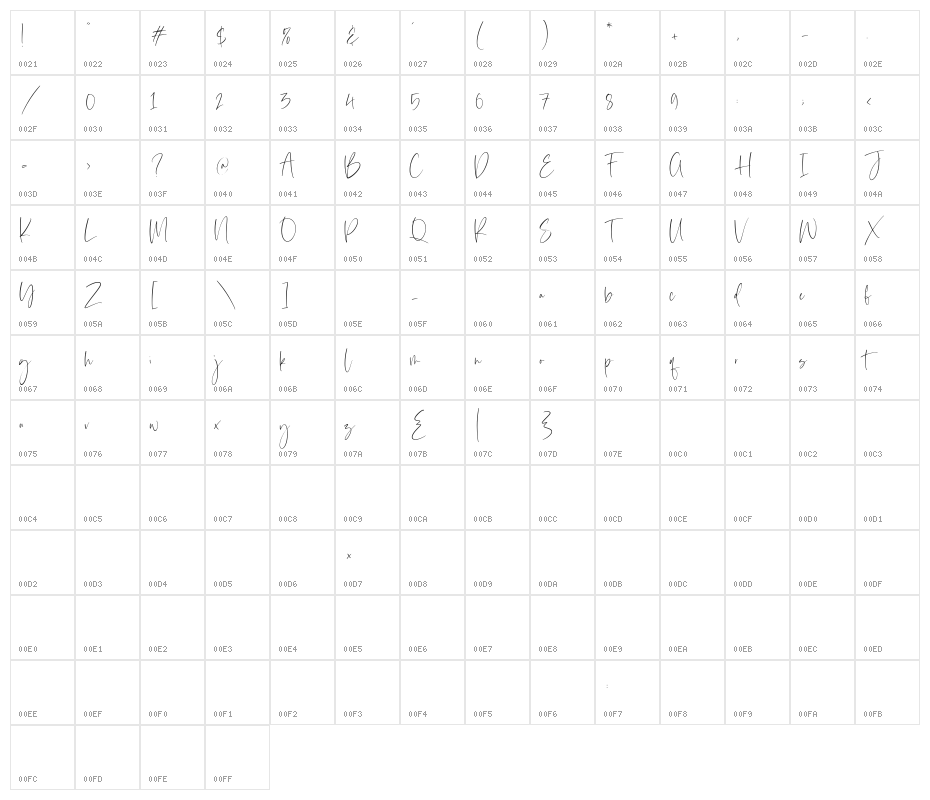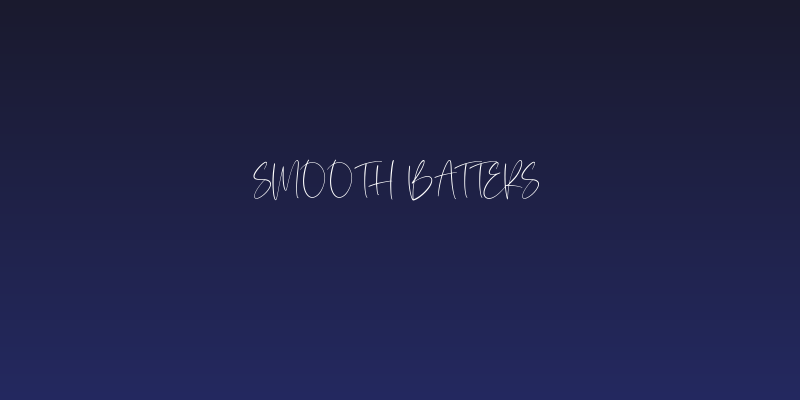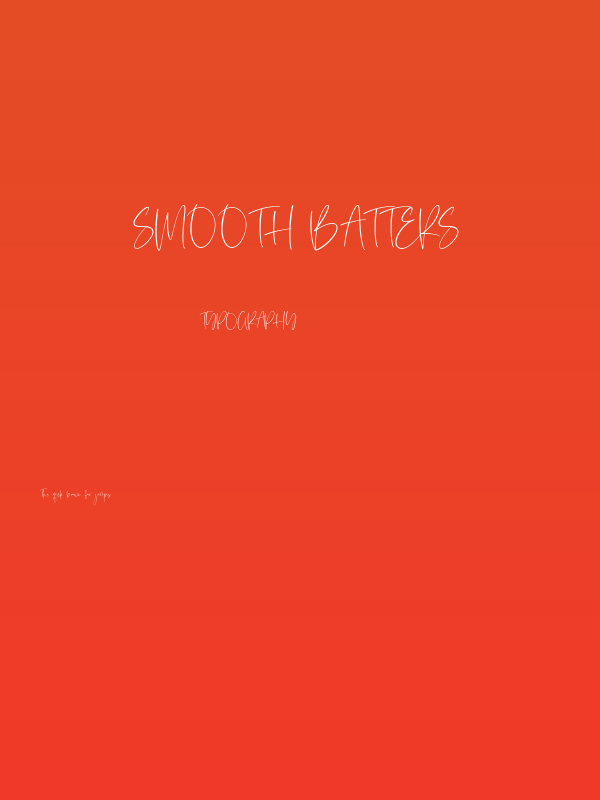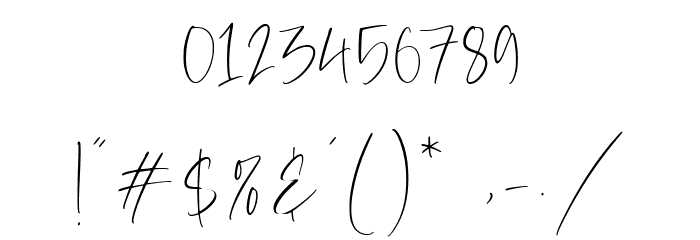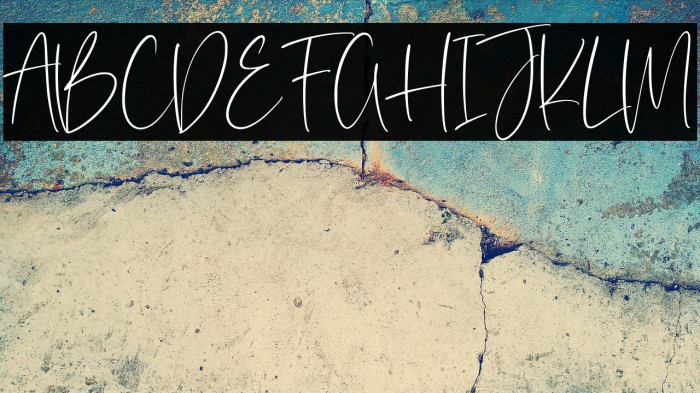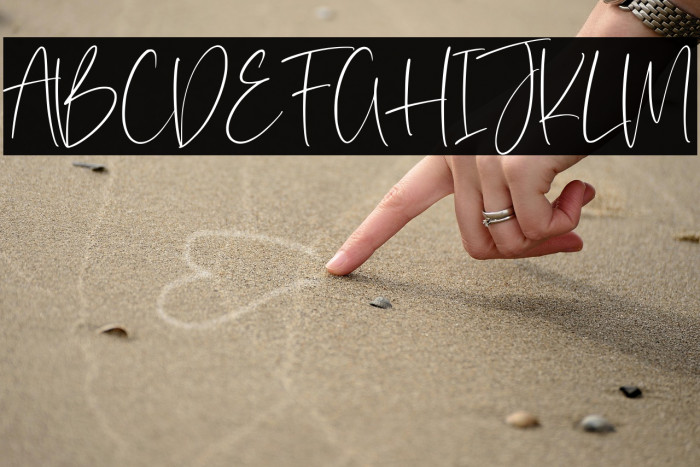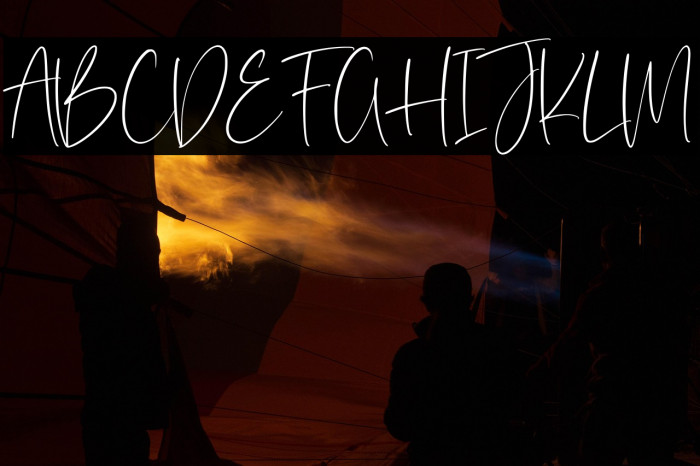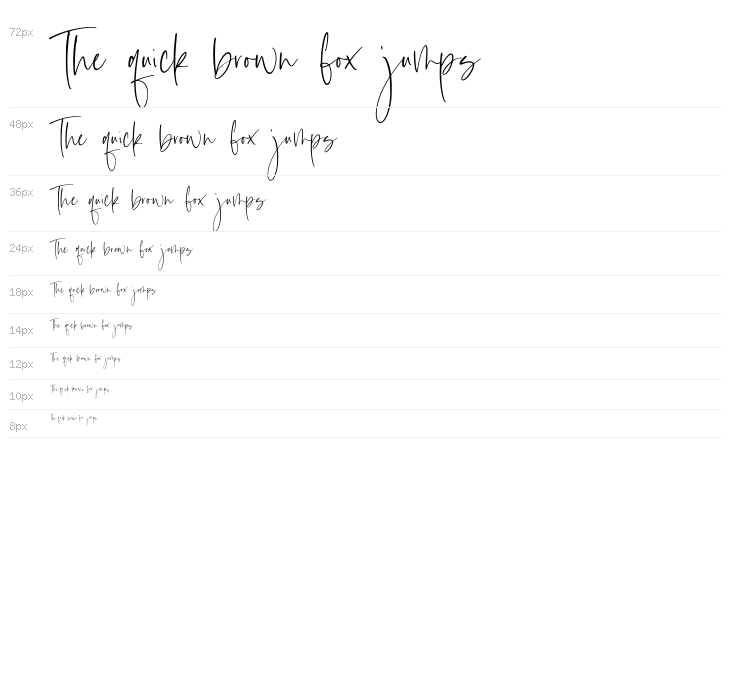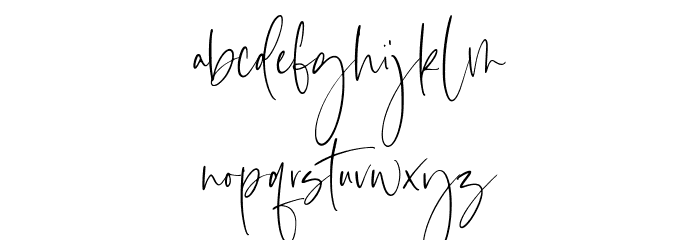
Smooth Batters Font
Smooth Batters Description
This font exudes a casual and artistic flair, characterized by its flowing, handwritten style. The letters are elegantly elongated with a slight slant, giving them a dynamic and lively appearance. The strokes vary in thickness, adding a touch of spontaneity and personal expression. The uppercase letters are bold and prominent, while the lowercase letters maintain a consistent fluidity, enhancing the overall aesthetic. The numerals and special characters complement the alphabet with their cohesive design, making the font versatile for creative projects. Its unique style is perfect for adding a personal touch to any design, whether it be invitations, branding, or artistic endeavors.